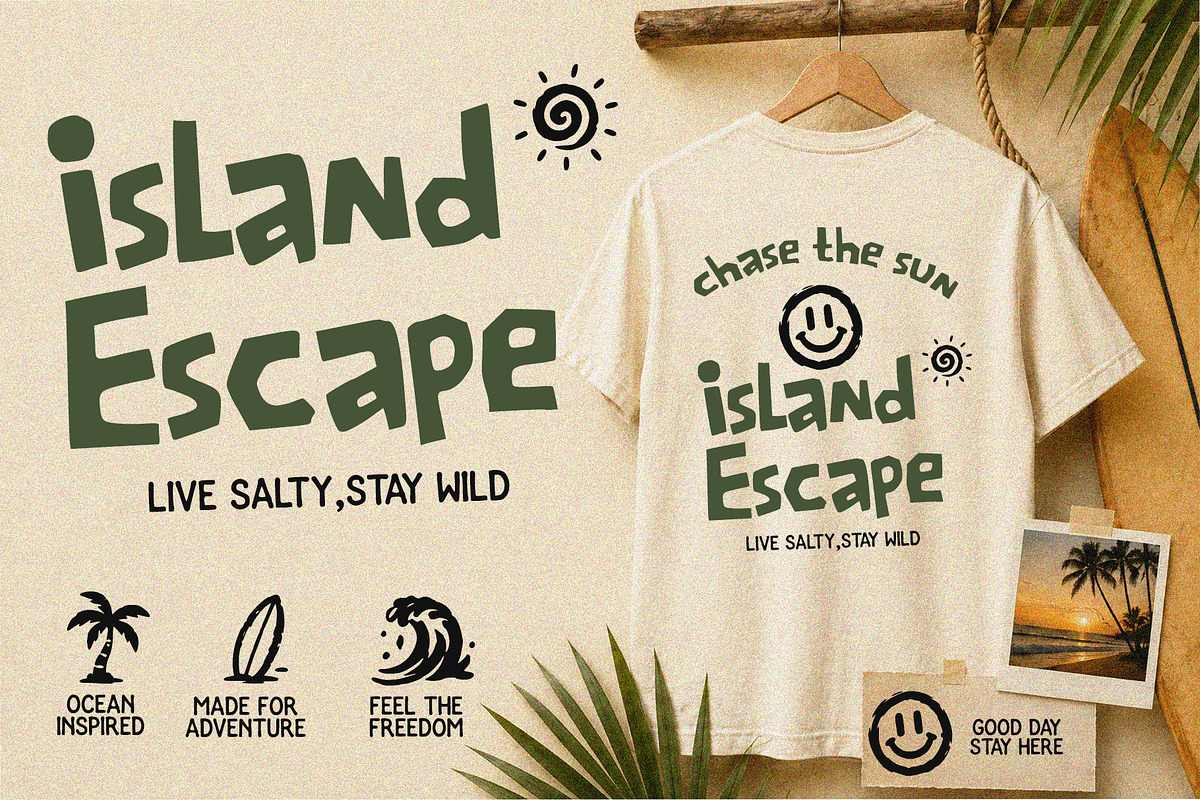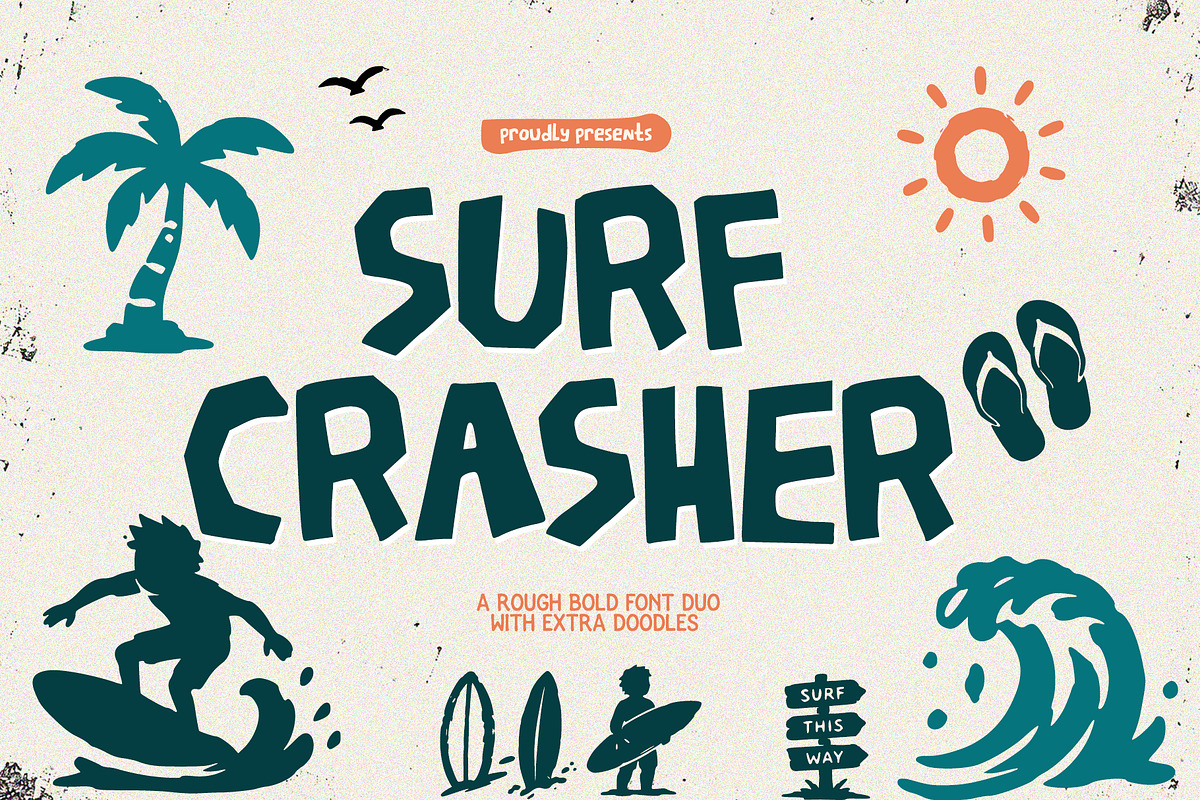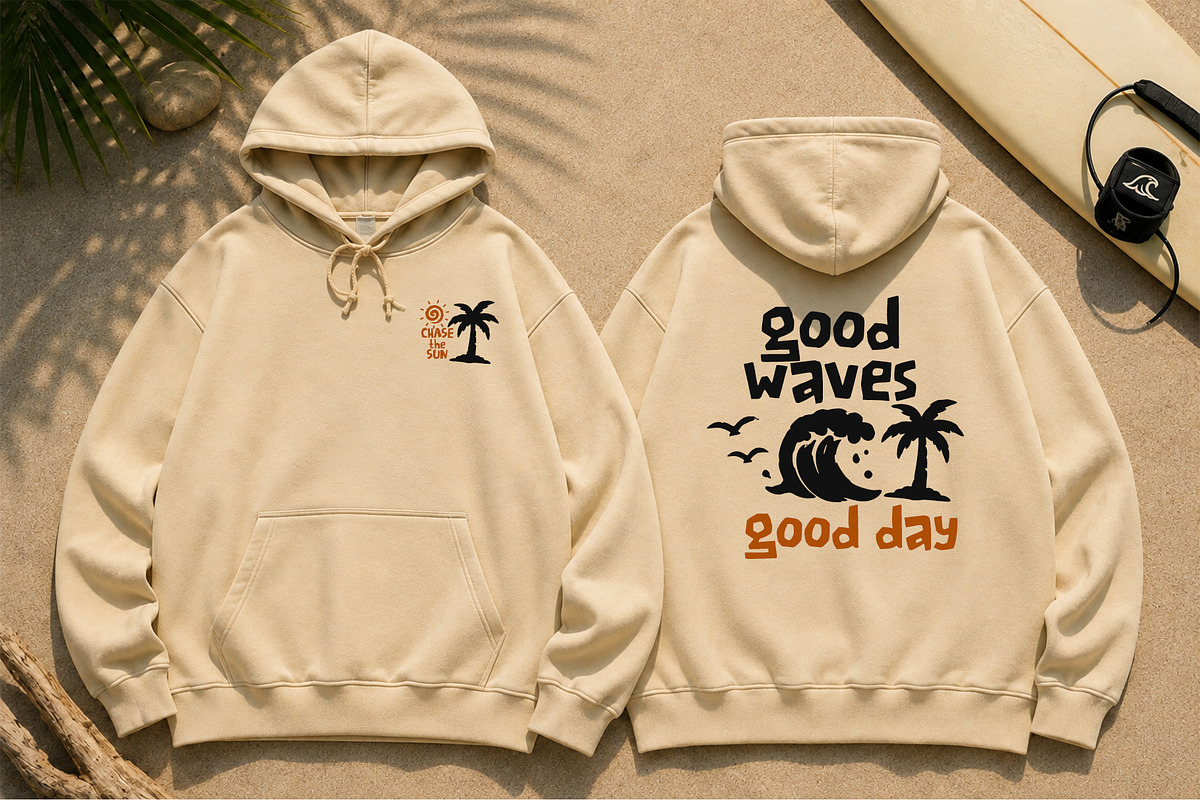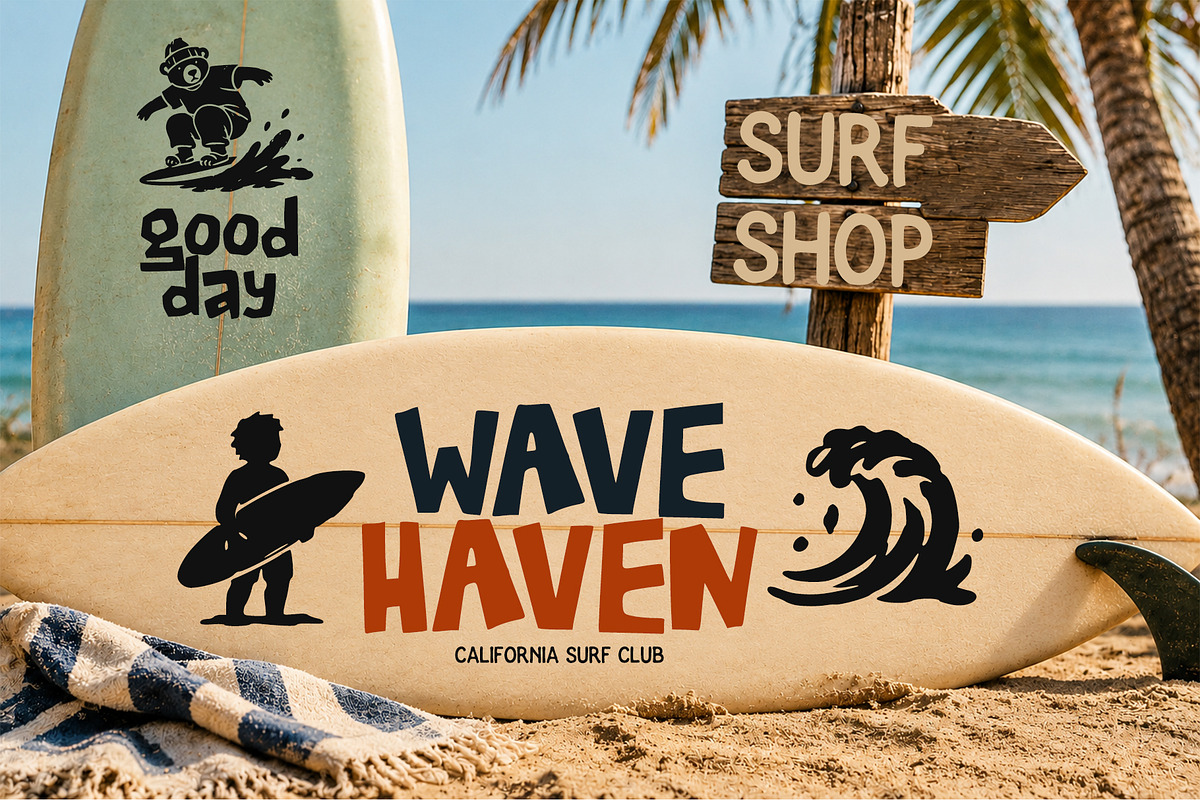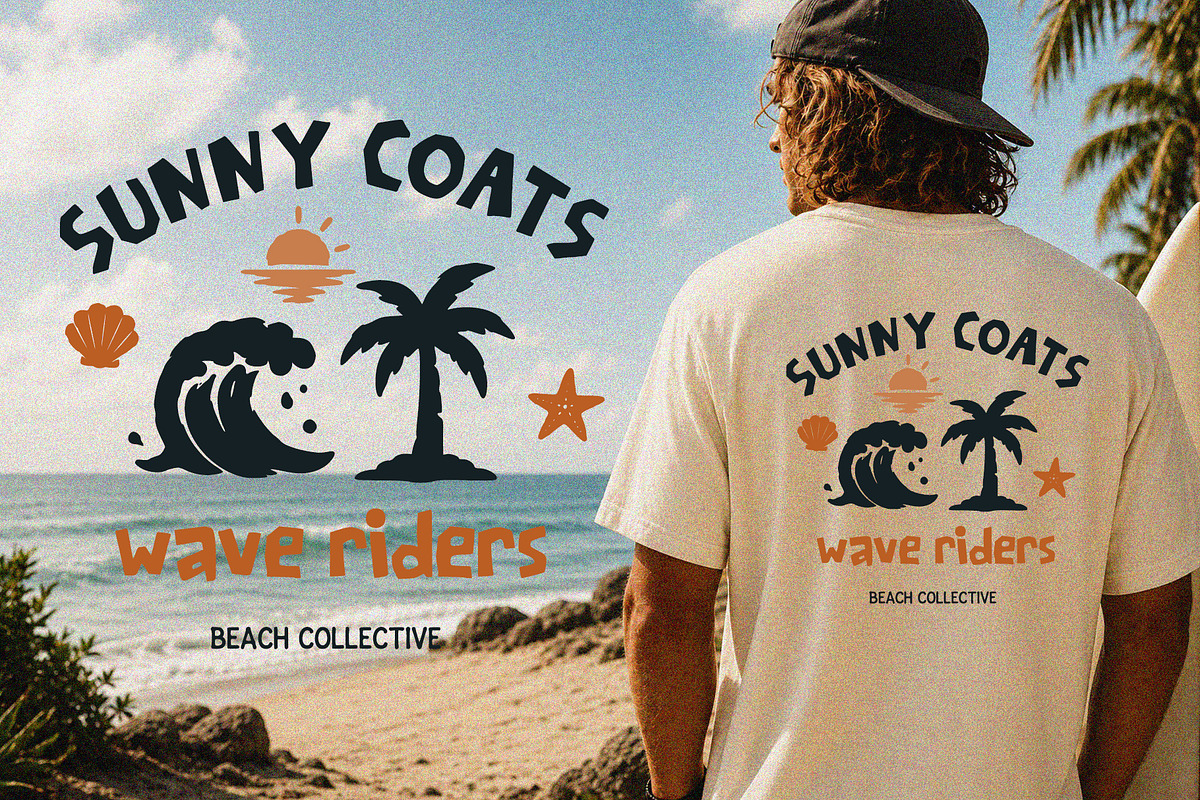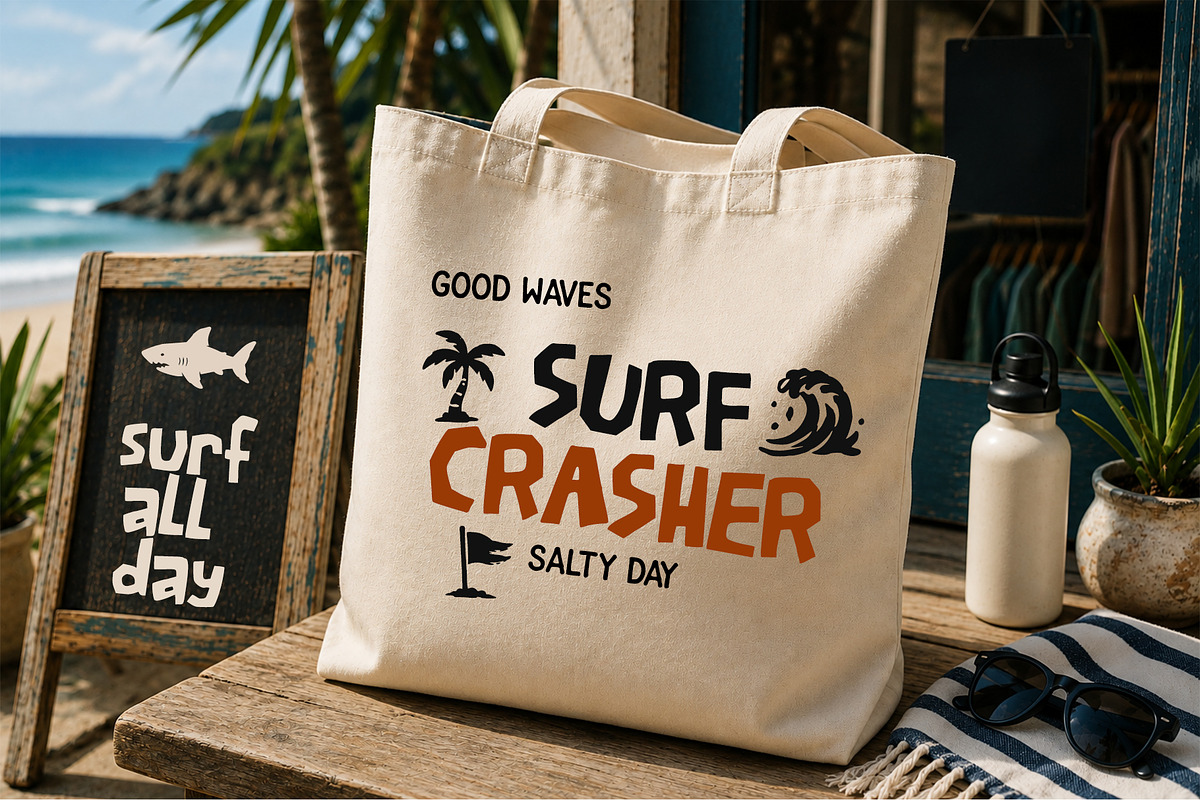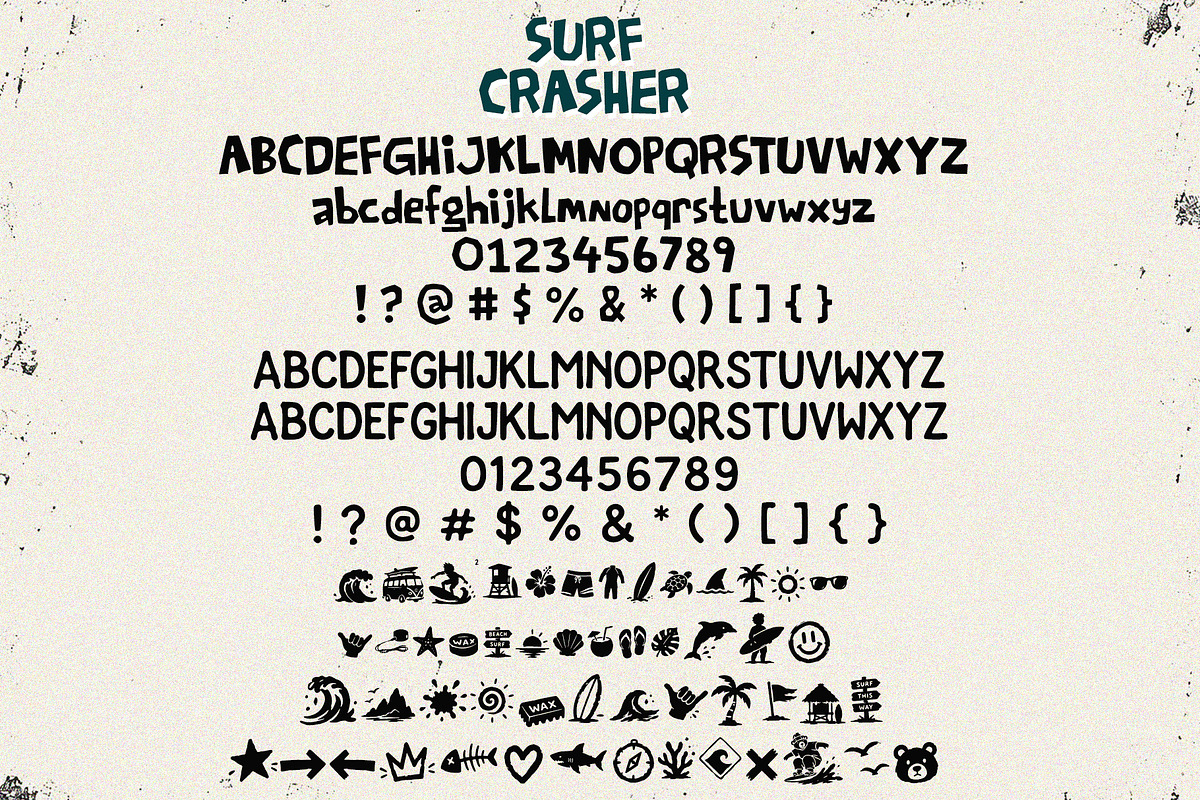
Surf Crasher is a rough bold font
Surf Crasher
Surf Crasher is a rough bold font duo inspired by the laid-back spirit of surfing, sunny beaches, and tropical adventures. Featuring chunky handcrafted letterforms with playful irregular shapes, this font brings a fun, energetic, and authentic handmade feel to any creative project.
To make designing even easier, Surf Crasher also includes extra hand-drawn surf doodles, making it simple to create cohesive and eye-catching designs for apparel, branding, posters, packaging, stickers, and other creative projects. The combination of bold lettering and playful illustrations delivers a complete beach-inspired design experience.
Whether creating retro-inspired merchandise or modern tropical branding, Surf Crasher offers a handcrafted style full of warmth, character, and creativity.